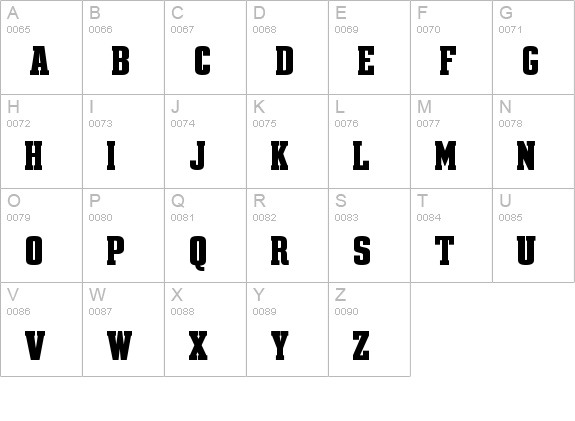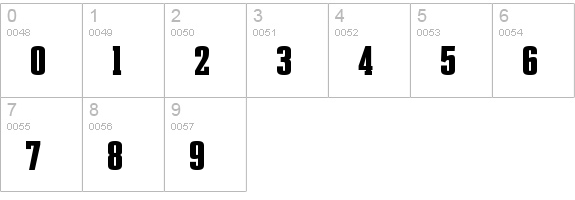
Constructa-Black is a maximum-weight, dramatic variant in the Constructa typeface family \xE2\x80\x94 well suited to maximum-impact headlines, posters, and packaging.
The Constructa-Black font is a bold and modern typeface that exudes strength and sophistication. With its clean lines and distinctive geometric shapes, this font is perfect for making a bold statement in your designs. Its sleek and professional look makes it ideal for branding, headlines, and other eye-catching graphics. What sets Constructa-Black font apart is not only its stylish appearance but also its versatility. Whether you are creating a sleek corporate identity or designing a striking poster, this font will take your projects to the next level. And the best part? Constructa-Black font is completely free to download at FontsMarket.com. So why wait? Give your designs a touch of modern elegance with the Constructa-Black font today!